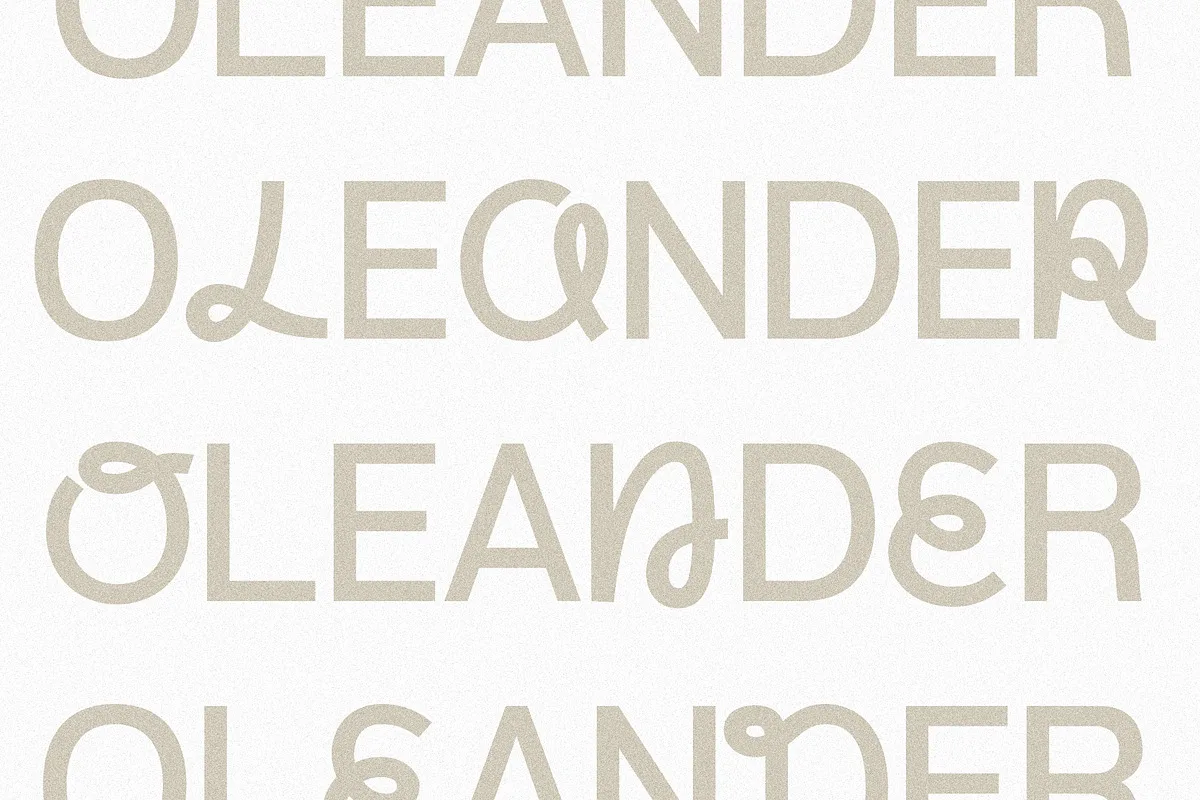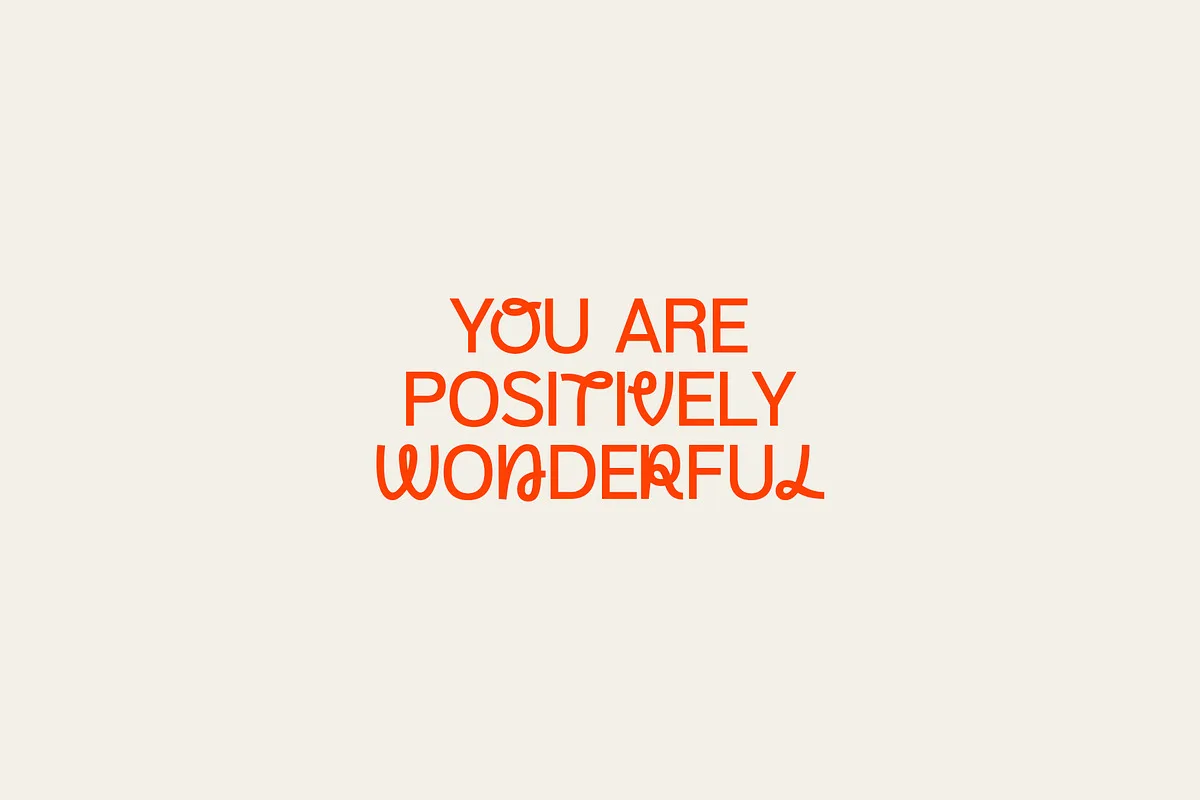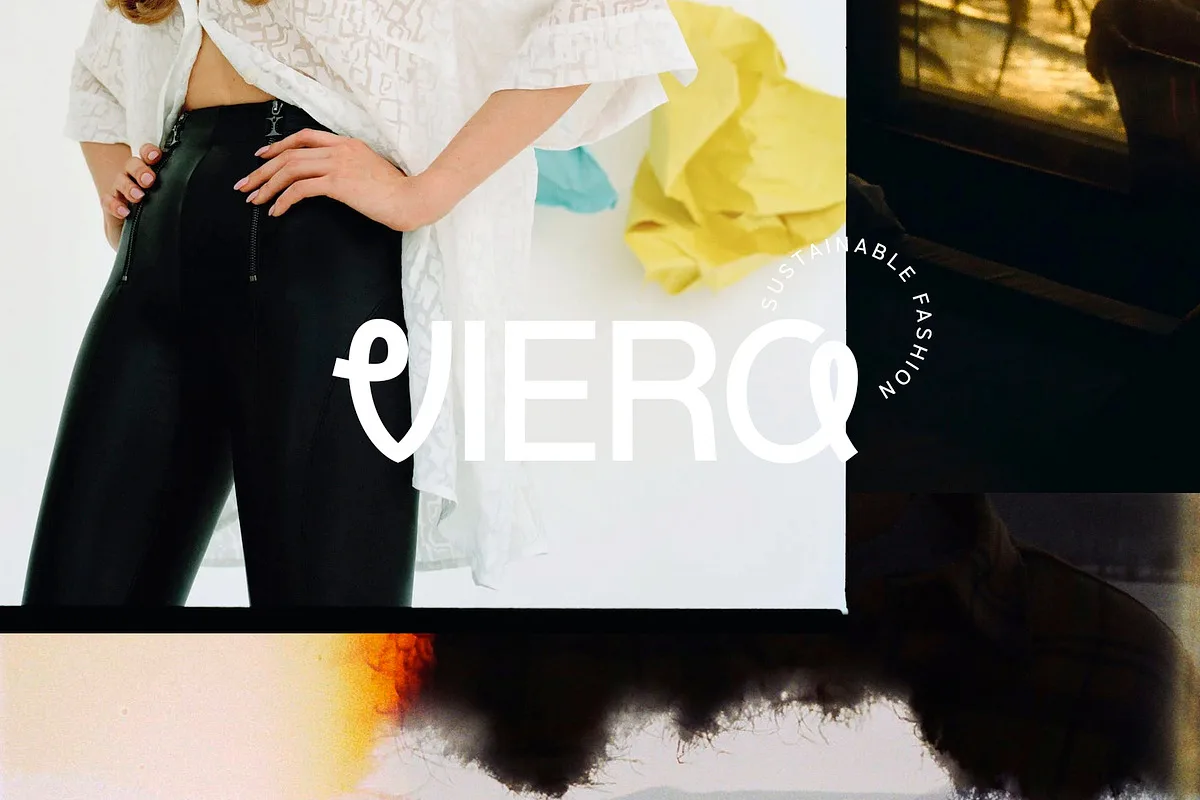
Lima is a casual sans serif that is the perfect combination of strength & play. With stunning, strong uppercase sans and a more playful loopy sans, you have the flexibility to mix & match to create the perfect combination.
Simply type in uppercase or lowercase to switch from strong sans to playful loops. Or, type in all caps for an uppercase sans that is gorgeous in its own right.